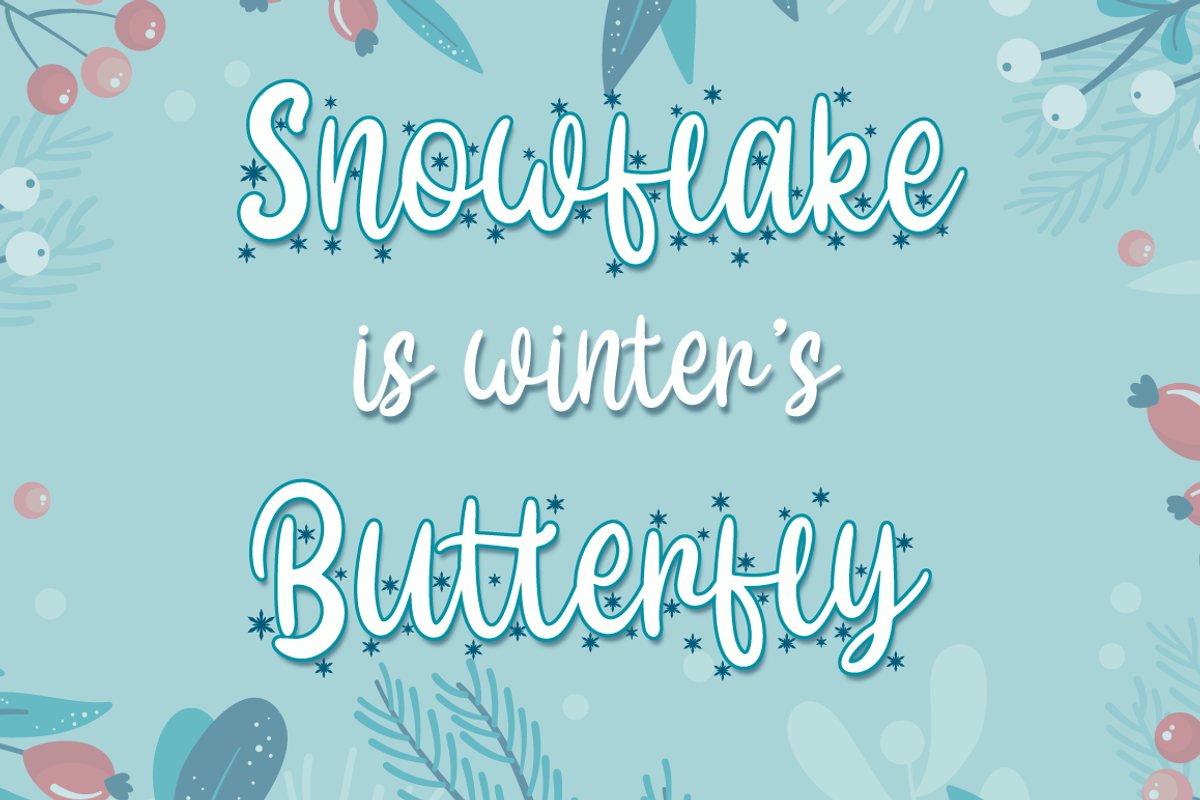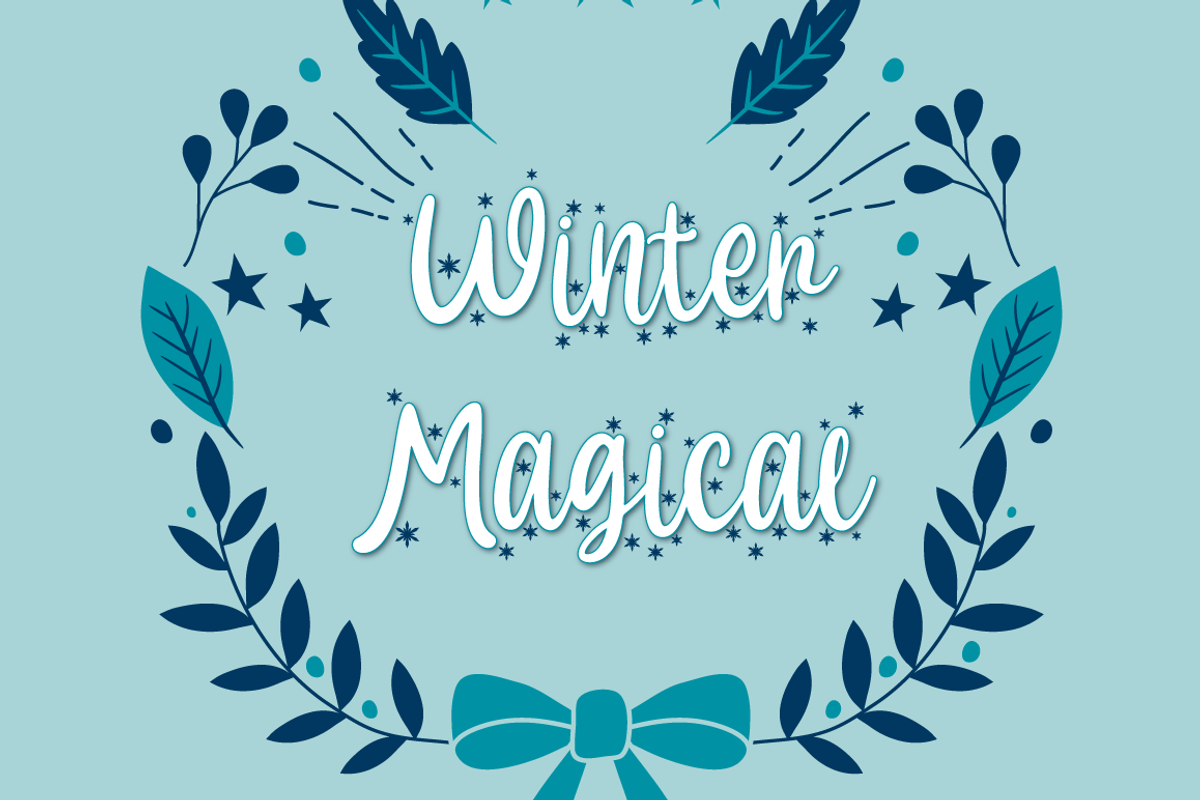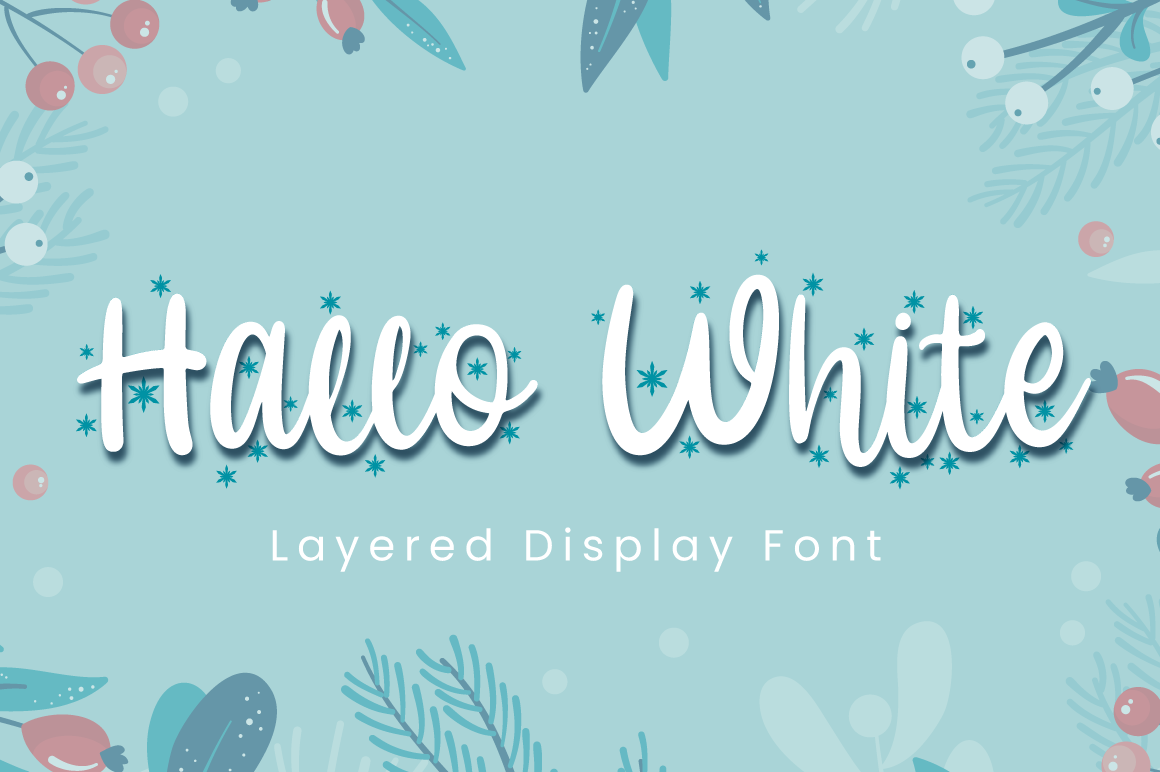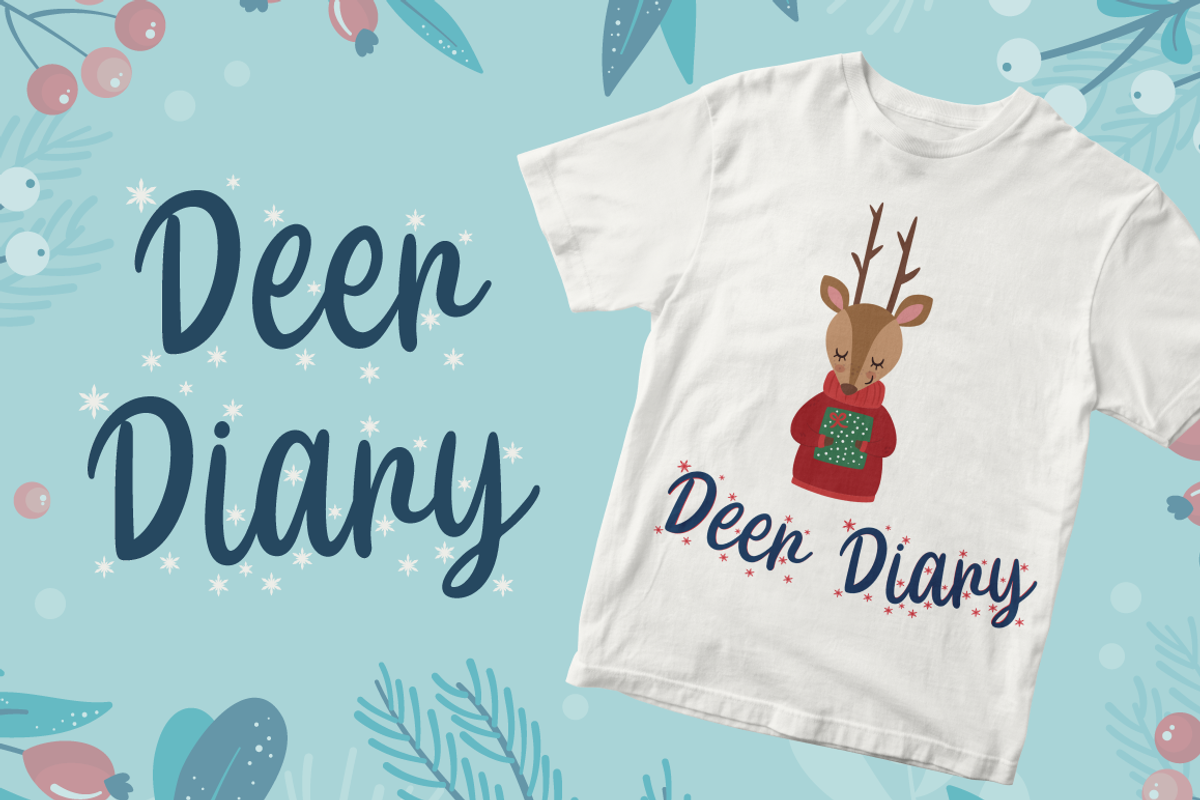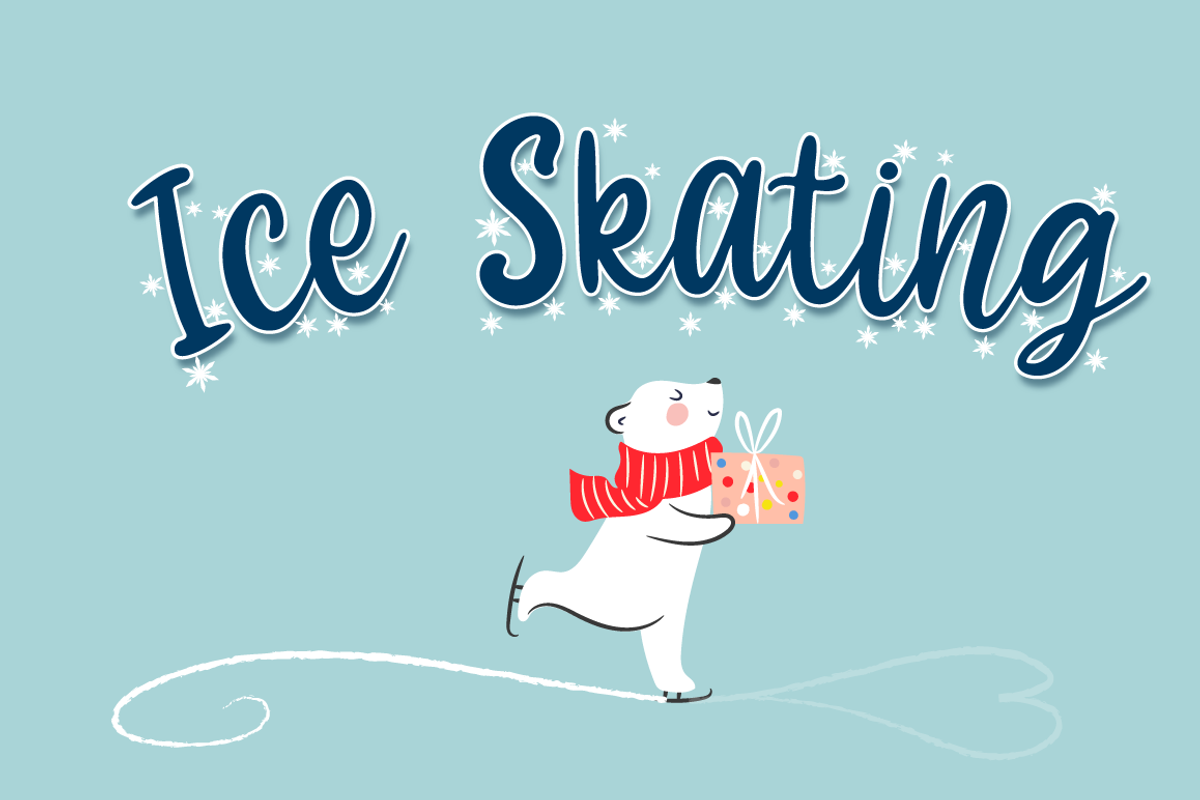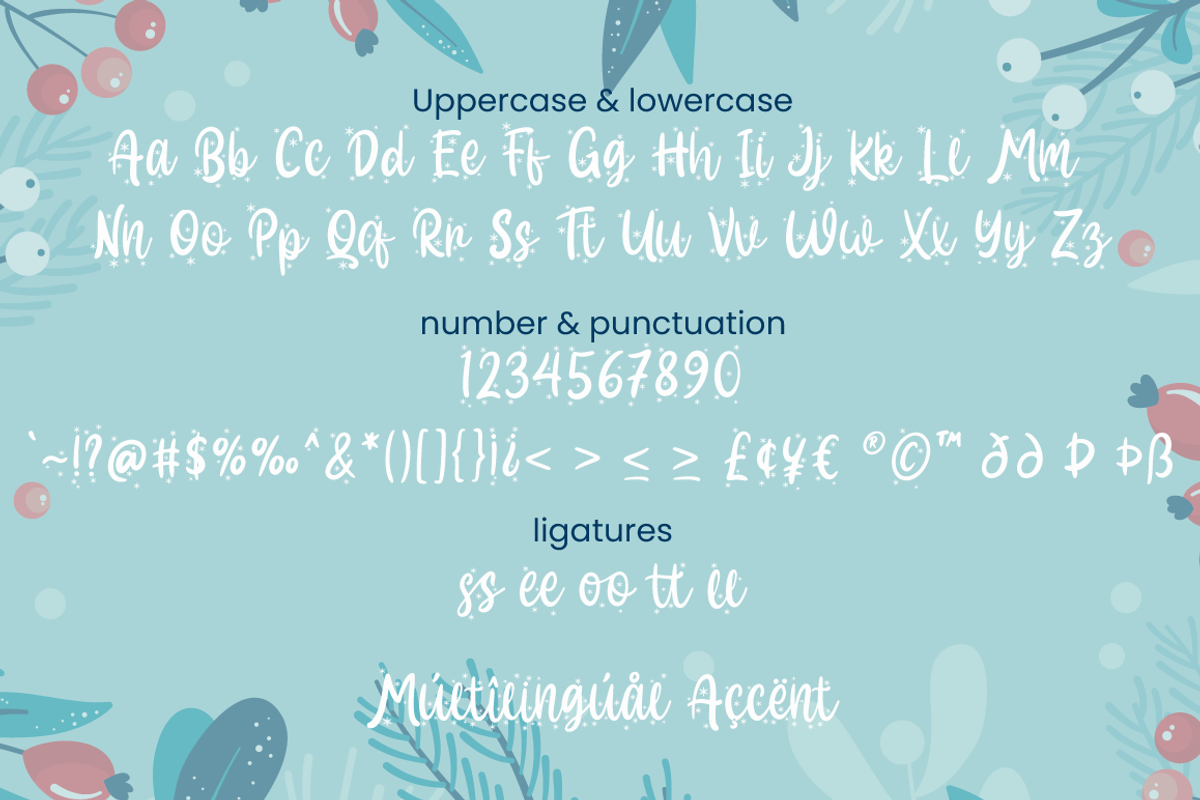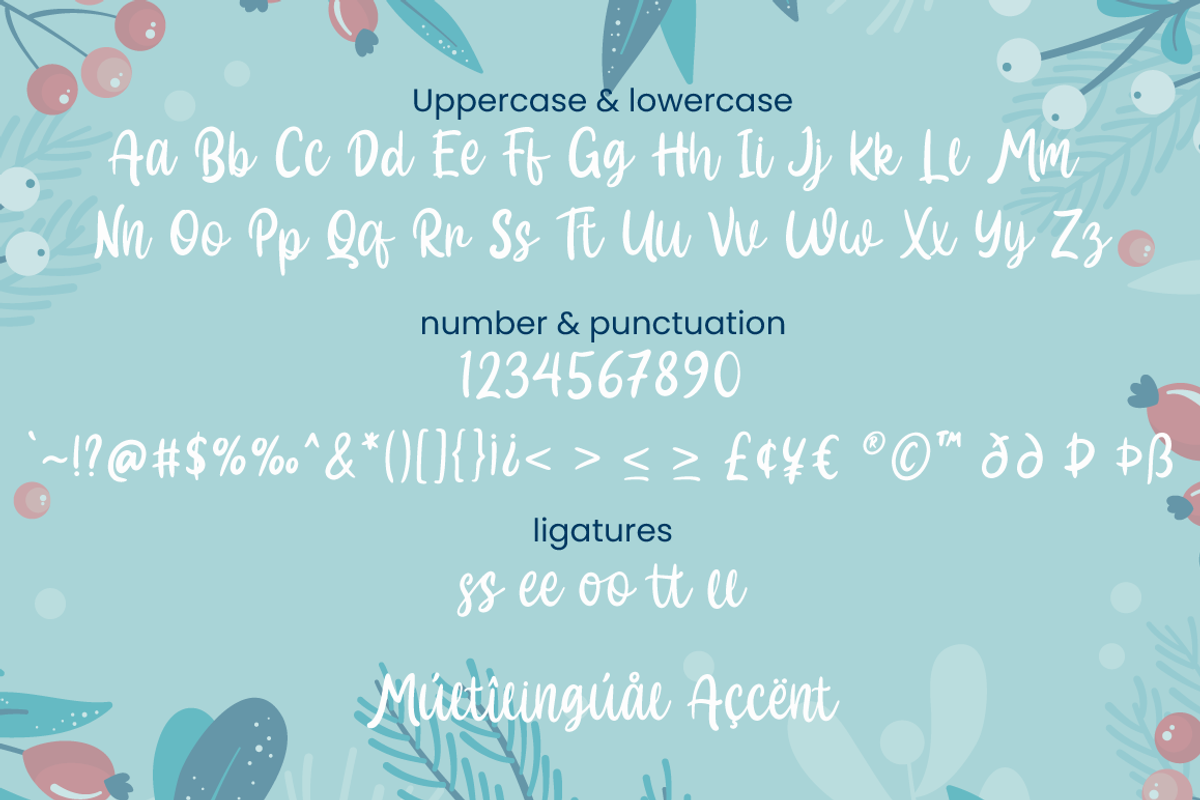
Hallo White - Christmas Font
Introducing Hallo White - Inspired by snowflakes on calligraphy, Hallo white perfect for winter events, making calligraphy merry christmas with snowflakes around it.
Two style Font: Calligraphy & Display
Hallo White is perfect for winter sale design, branding, logo, invitation, stationery, wedding, product packaging, merchandise, monogram, blog design, game titles, cute style design, Book/Cover Title and more.